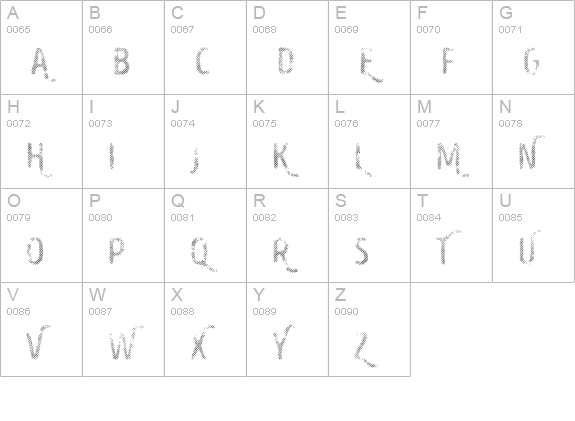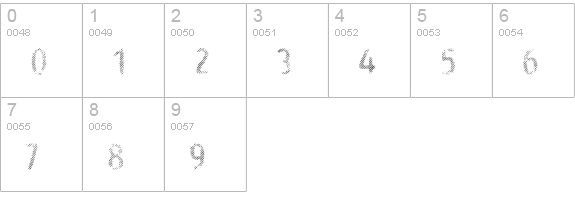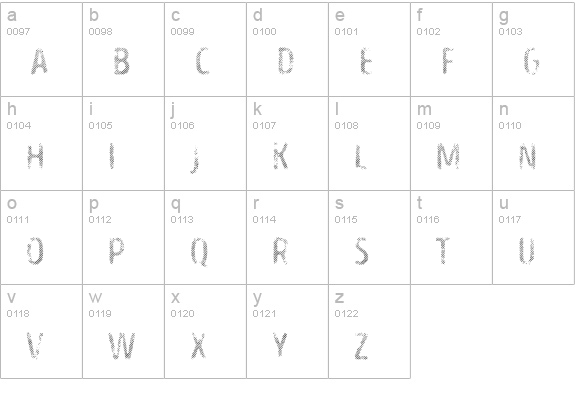
Intro Head H UC L Font Details
Introducing Intro Head H UC L font, a modern and stylish typeface that exudes elegance and sophistication. This font is perfect for creating eye-catching headlines and titles that demand attention. With its bold and uppercase letters, Intro Head H UC L font makes a strong statement in any design project. And the best part? It's completely free! You can easily download Intro Head H UC L font at FontsMarket.com and start using it in your projects right away. Whether you're designing a poster, logo, or website, this versatile font is sure to elevate your work to the next level. Don't miss out on this fantastic opportunity to enhance your designs with the sleek and professional look of Intro Head H UC L font.